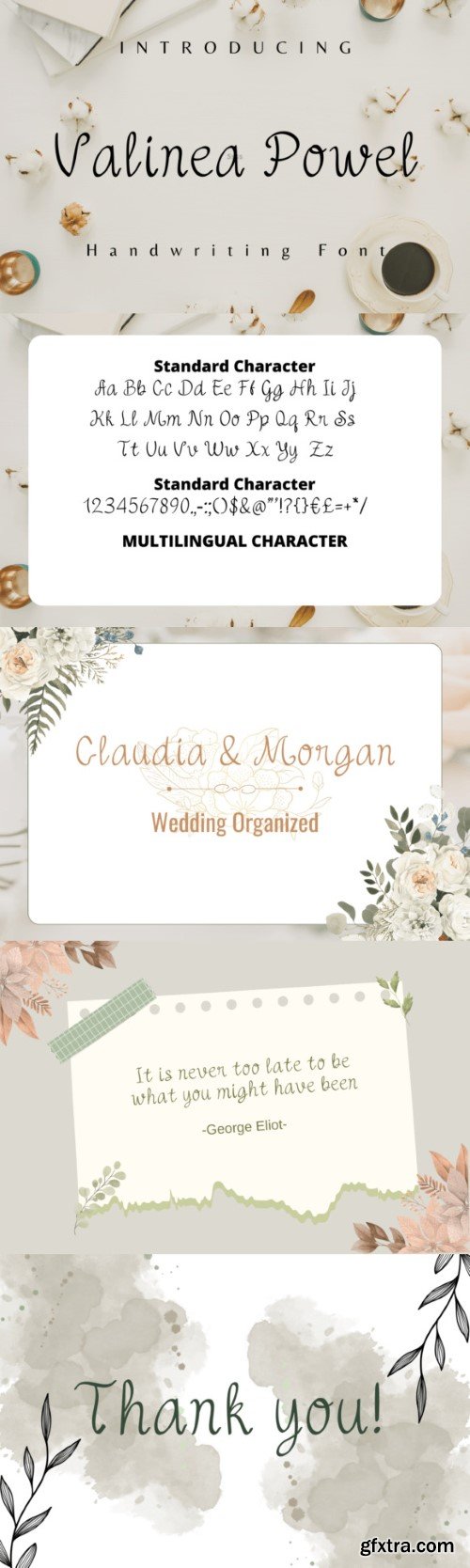
瓦尔妮拉·波尔字体
Introducing “Valinea Powel,” a digital font masterpiece meticulously crafted with hand-drawn elegance, effortlessly blending natural, unique, and timeless qualities.
Perfectly suited for captivating magazine layouts, exquisite wedding invitations, inspiring quotes, unforgettable branding, and iconic logos, this font unlocks a world of authenticity and sophistication for every design endeavor. Embrace the artistry of “Valinea Powel” and infuse your designs with the grace of timeless elegance.